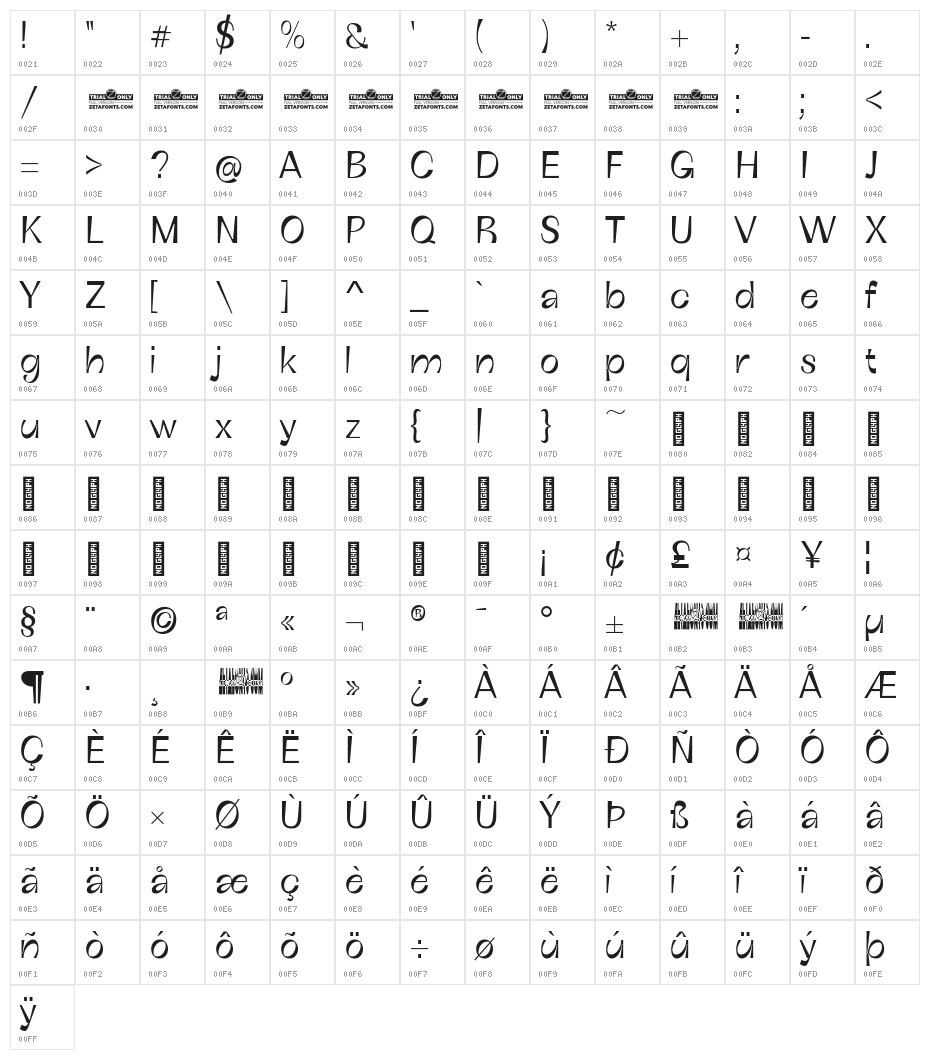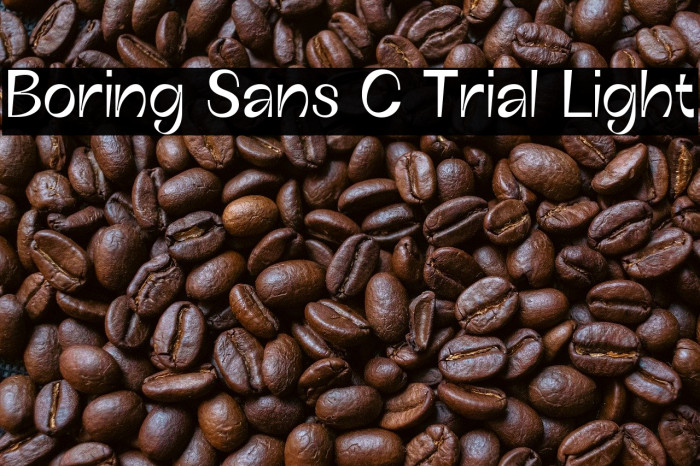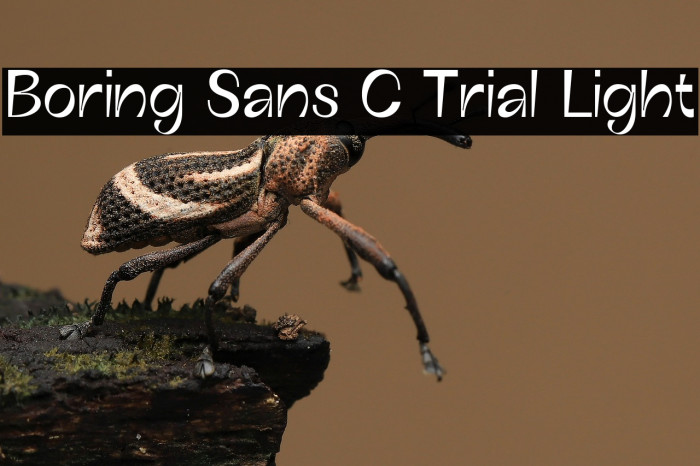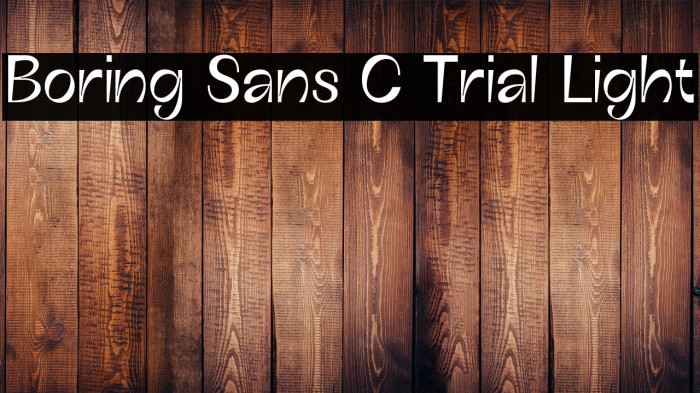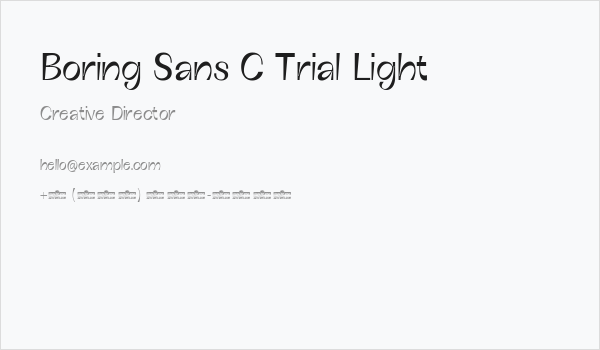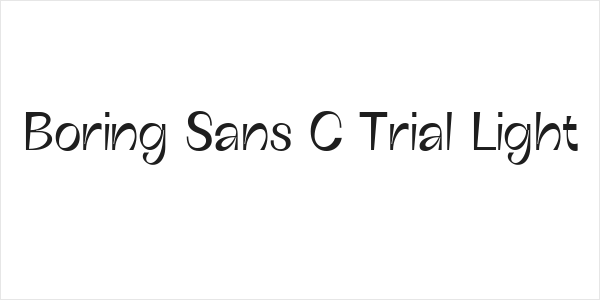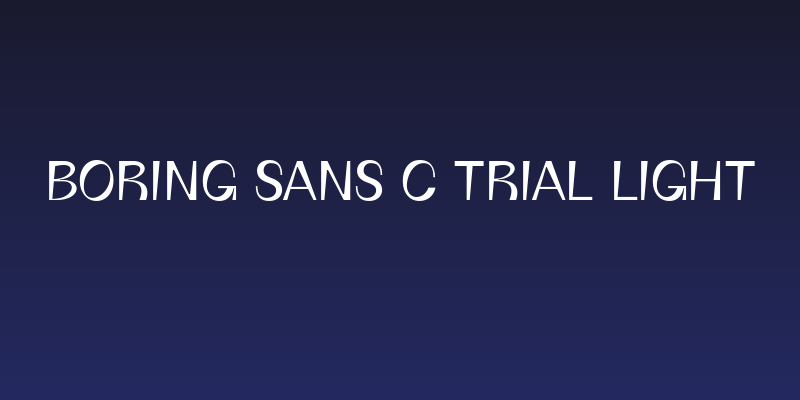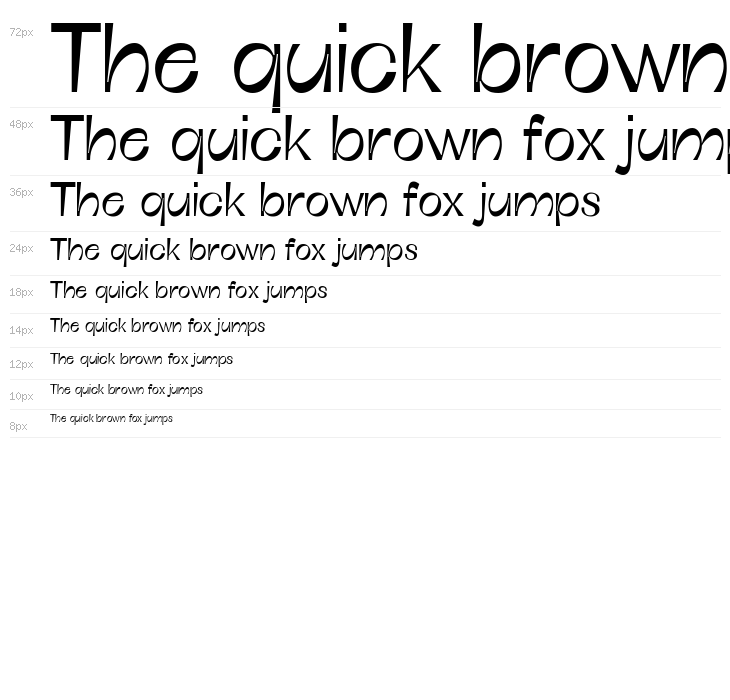
Boring Sans C Trial Light Font
Boring Sans C Trial Light Description
This font features a clean and modern sans-serif style with a light weight, offering a sleek and contemporary appearance. The characters are slightly condensed, providing a compact look that maintains readability. The design includes subtle curves and a consistent stroke width, contributing to a harmonious and balanced aesthetic. The uppercase letters are bold and assertive, while the lowercase letters maintain a friendly and approachable feel. The numerals and special characters are designed to match the overall style, ensuring uniformity across all text elements.
| Proposed Projects | Ideal for branding, web design, and editorial projects where a modern and clean look is desired. |